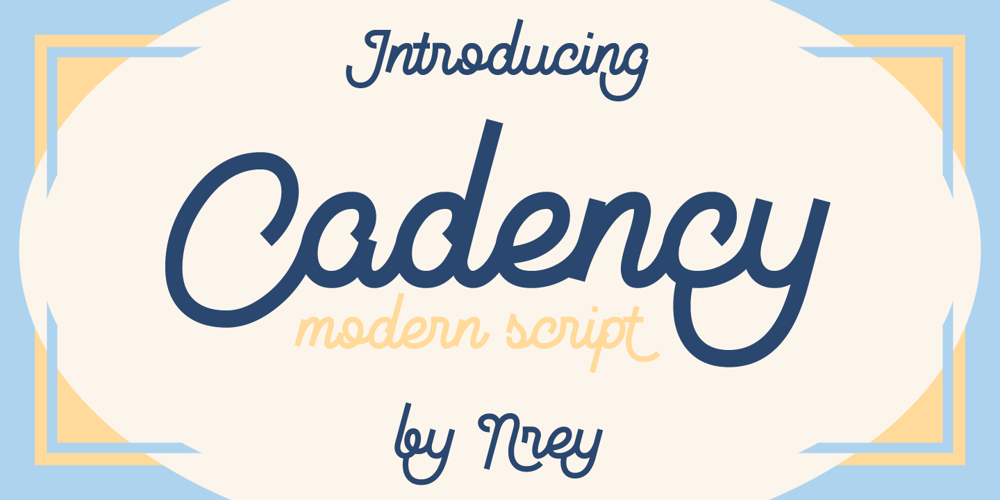
Cadency
Cadency font
Cadency Font Family was designed by Andriy Dykun and published by NREY. Cadency contains 1 styles and family package options. Cadency is a cool and modern script font, monolinear with cut sharp ends. Can be used for your various design projects such as logotype, poster, digital lettering arts, clean design, branding design, signs, and more. Features: – Uppercase – Lowercase – Numeral & Punctuation – Standard Ligatures – Stylistic Alternates – PUA Encoded – Multilingual Support To enable the OpenType Stylistic alternates, you need a program that supports OpenType features such as Adobe Illustrator CS, Photoshop, Indesign & CorelDraw X6-X7 and more.